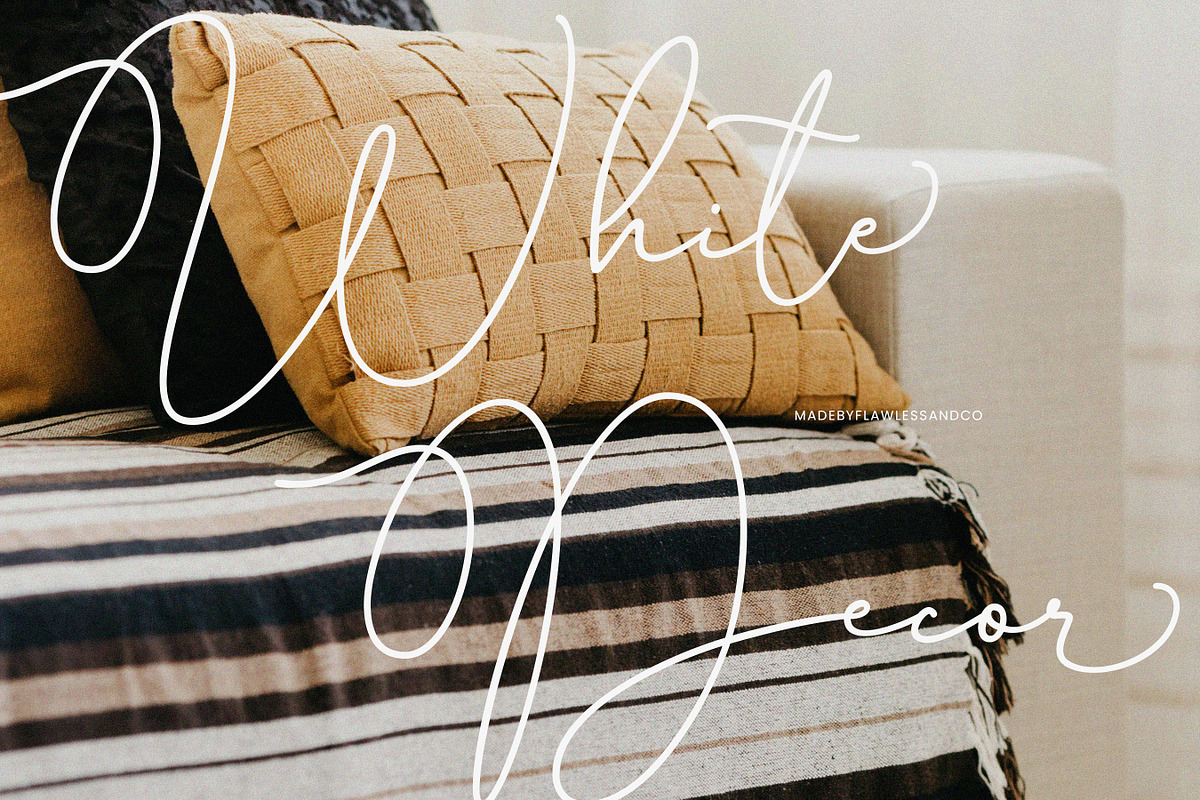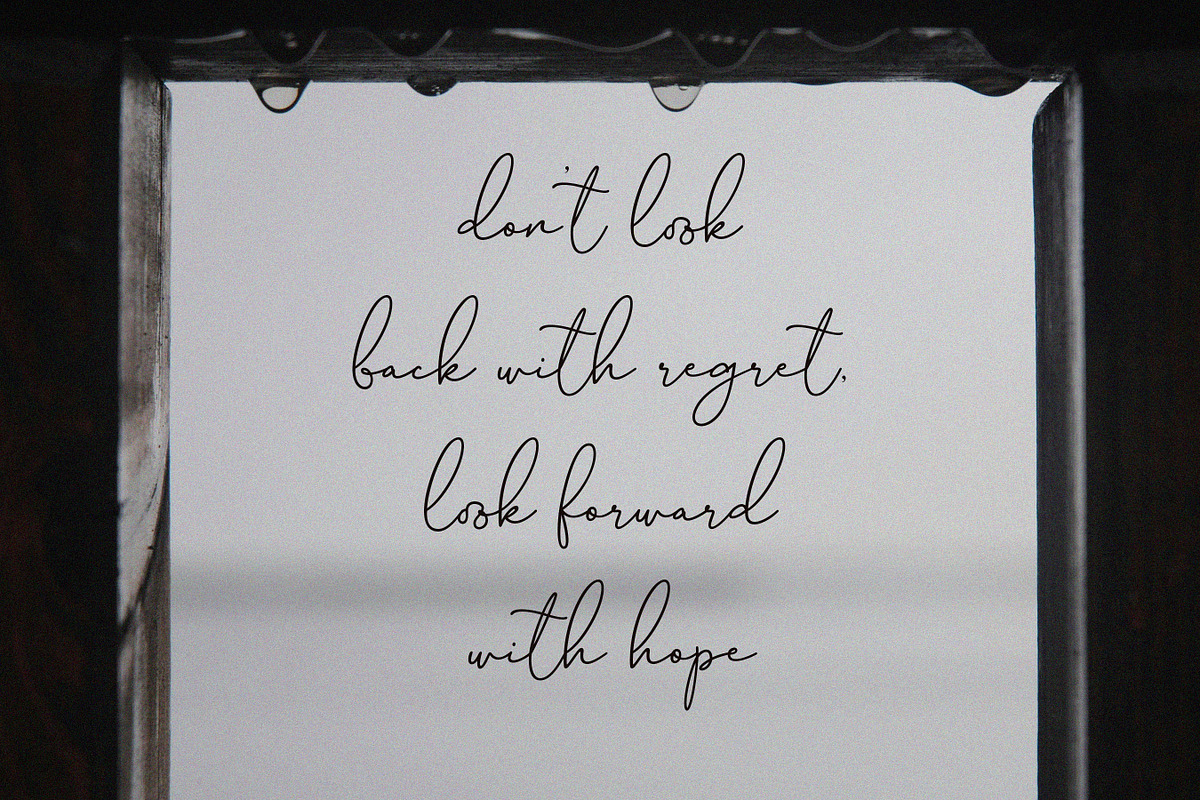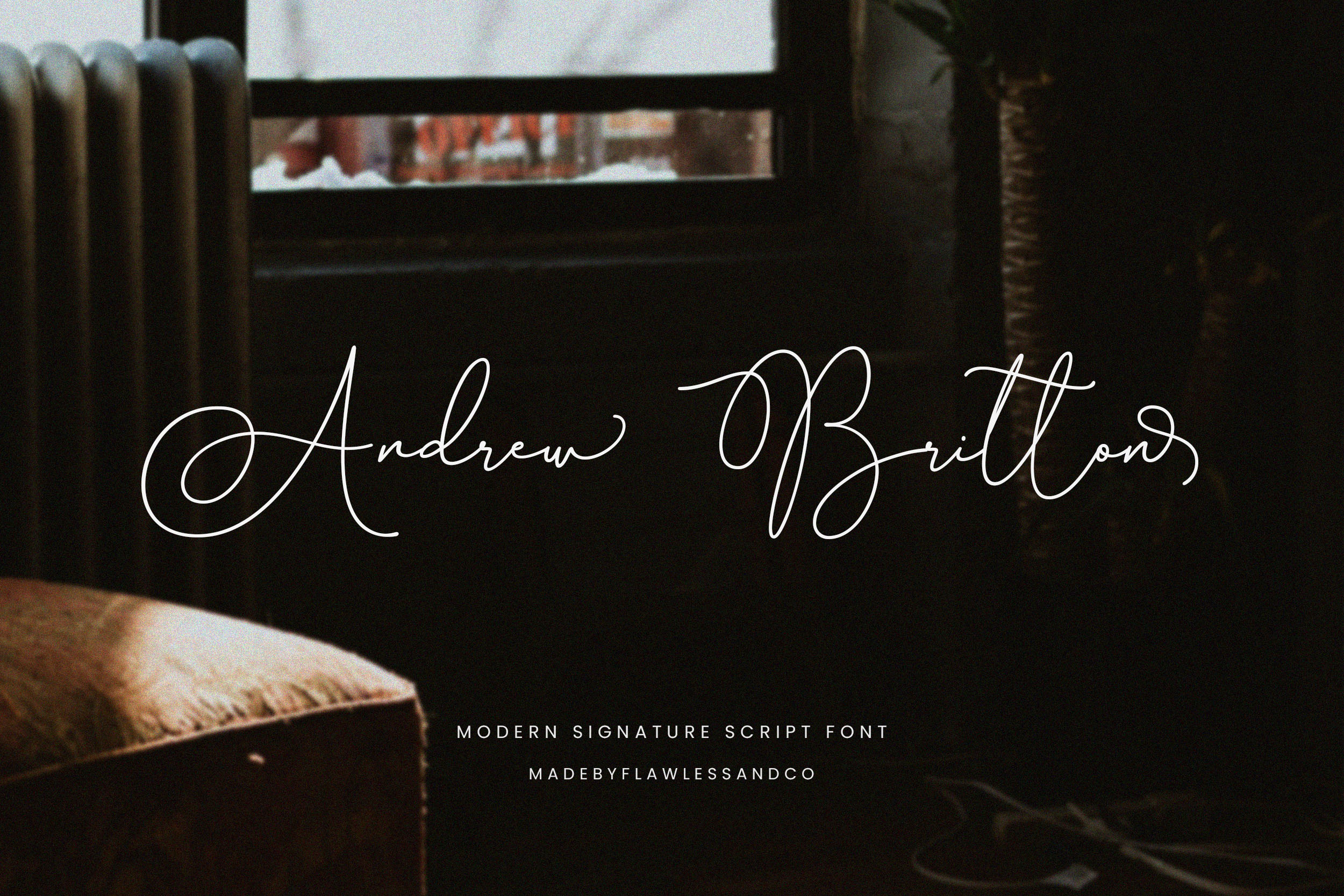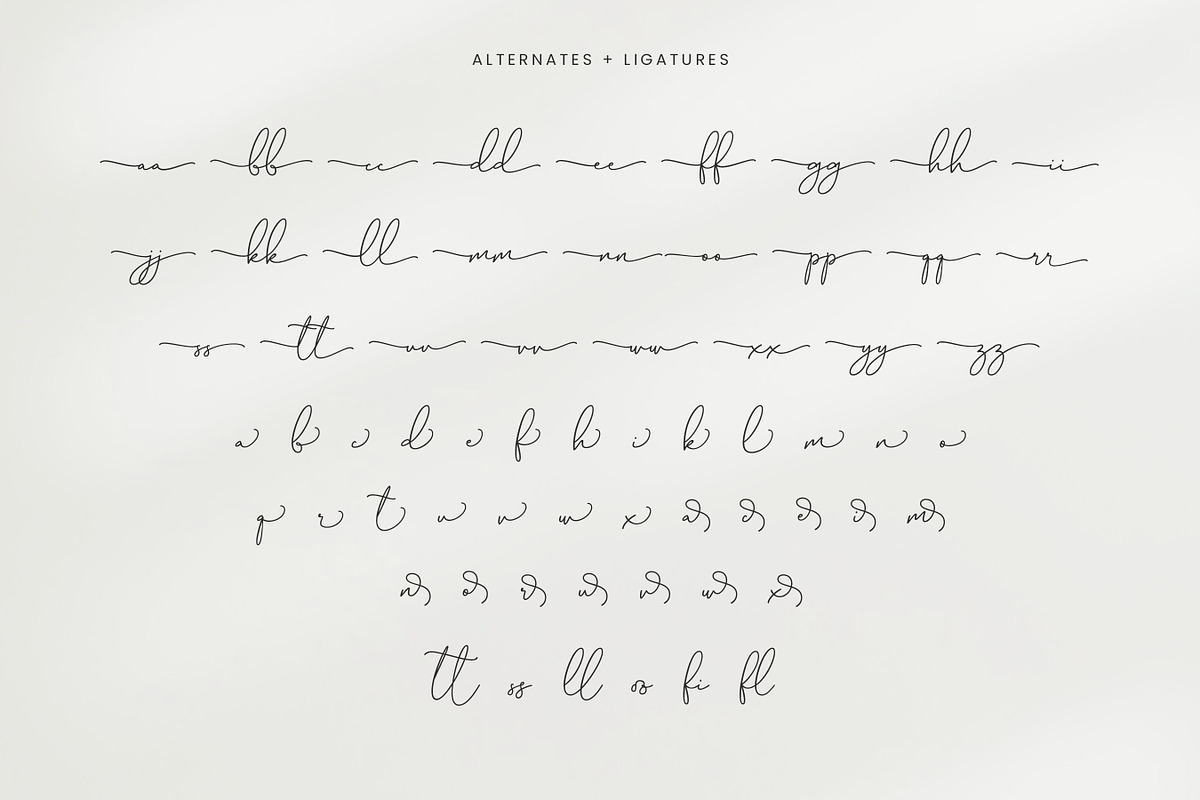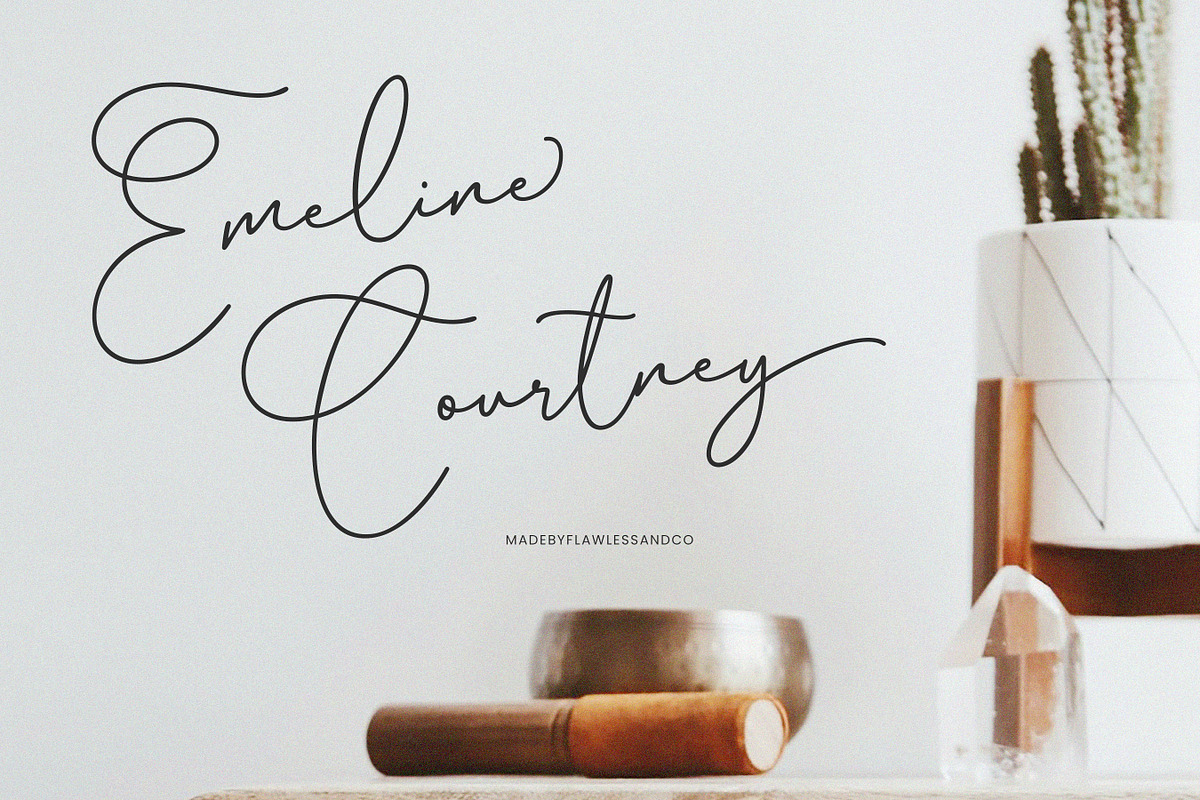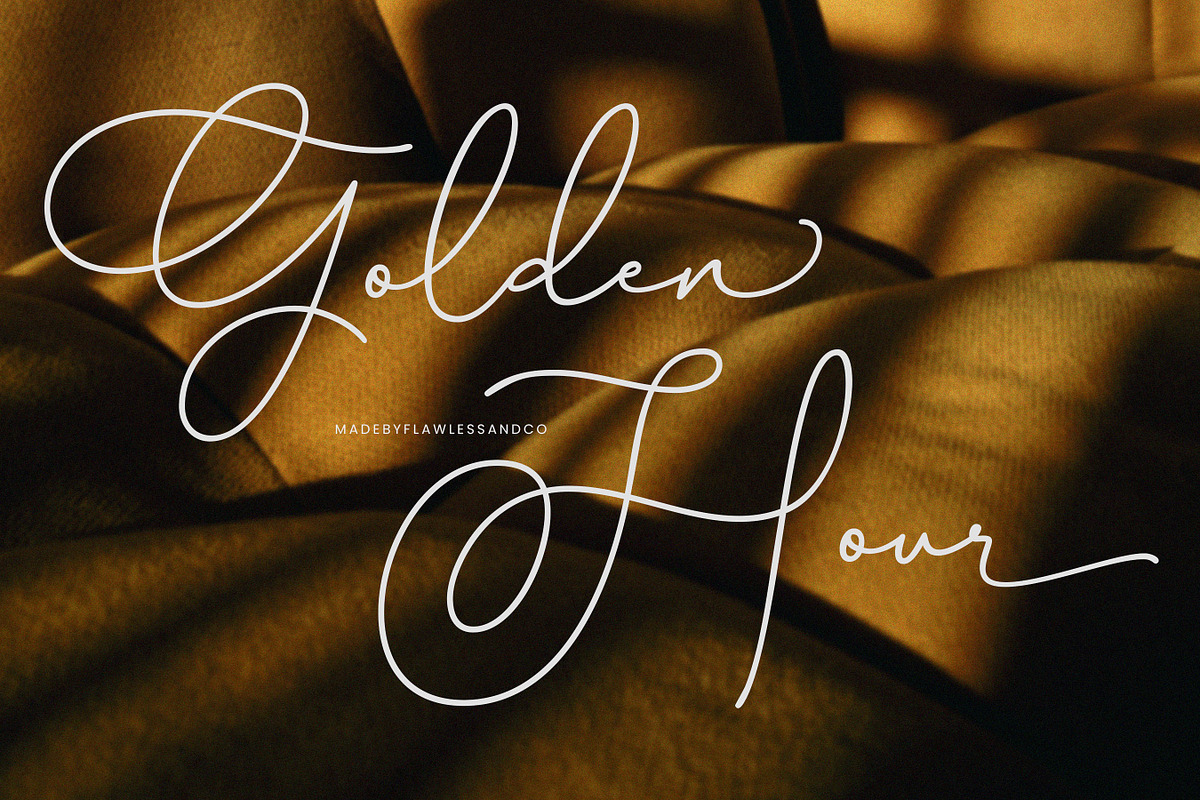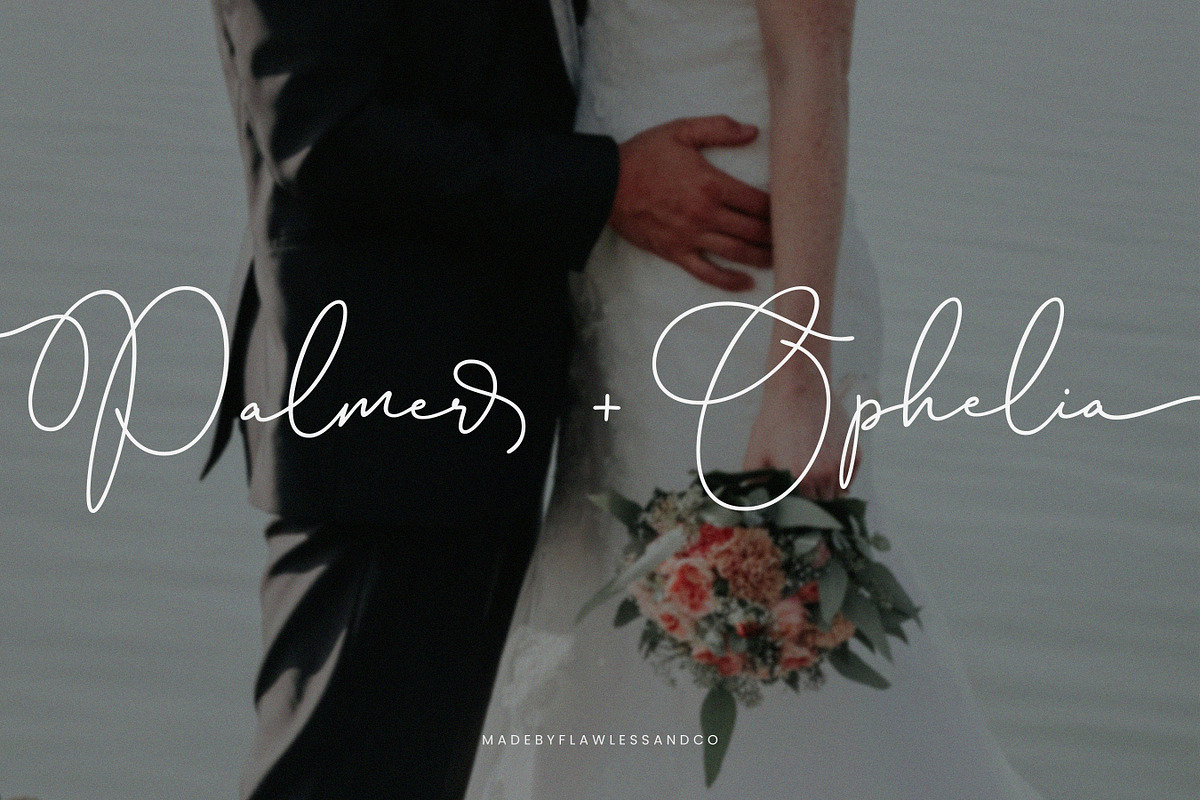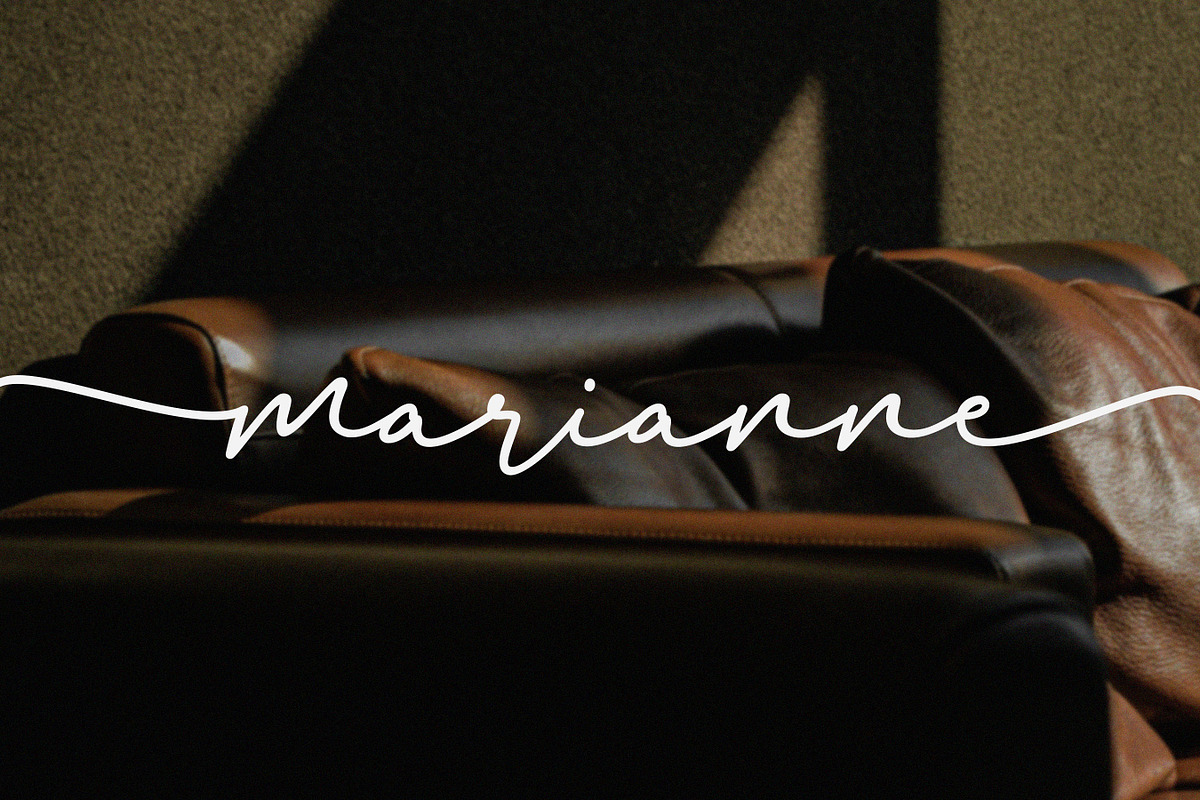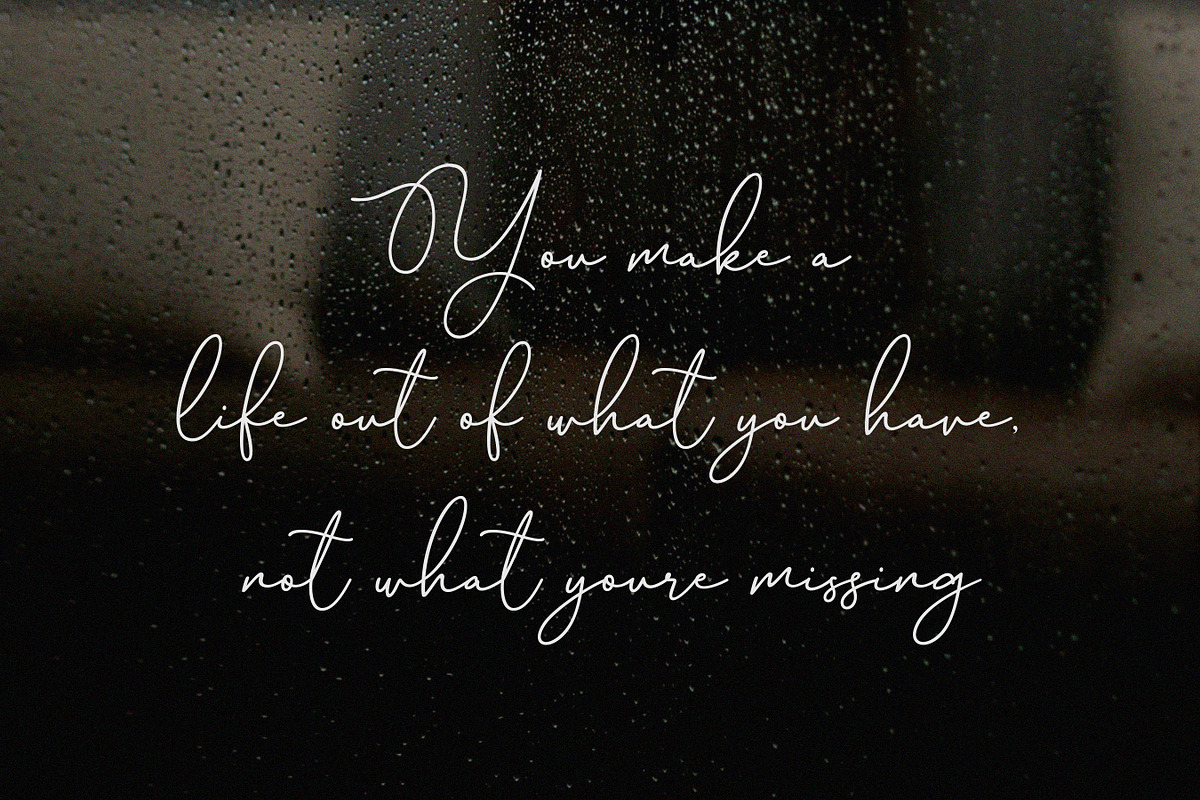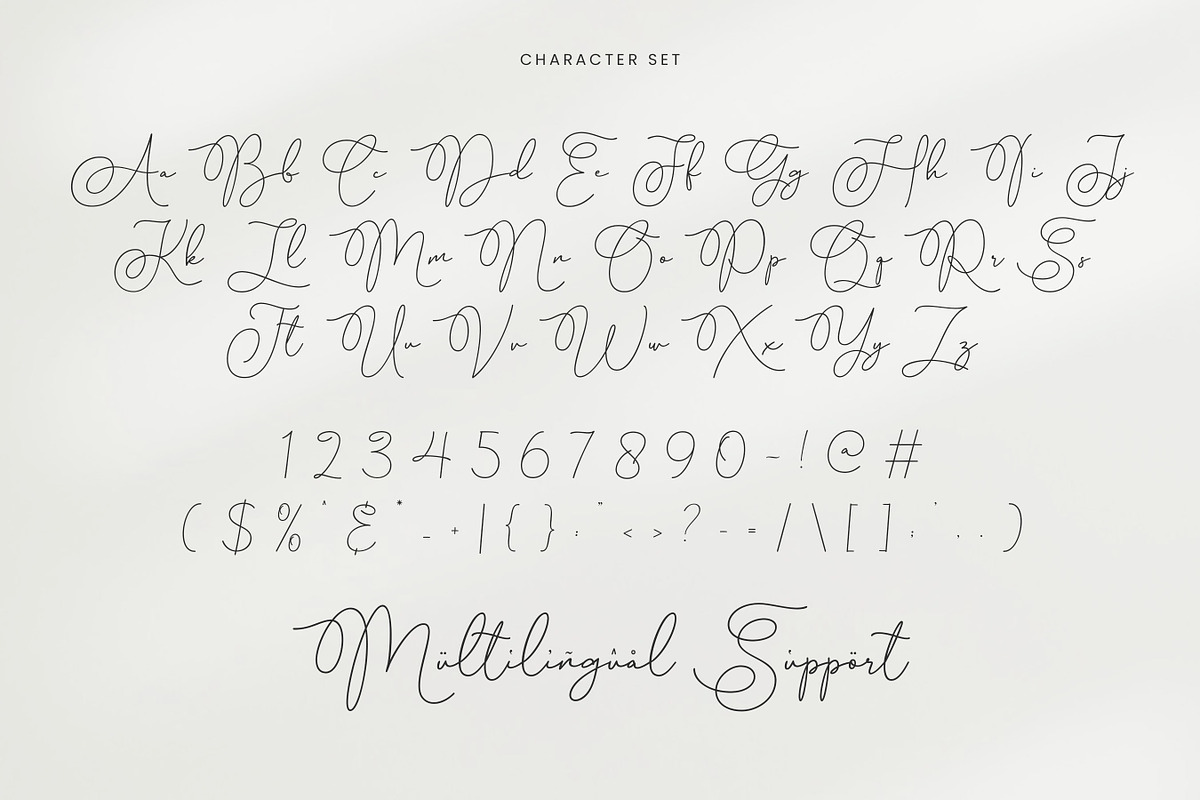
Andrew Britton - Script Wedding Font
Introducing Andrew Britton, a captivating signature script font meticulously crafted to exude elegance and timeless beauty, making it the perfect choice for your wedding invitations, stationery, and other special occasion materials. Inspired by the graceful flow of calligraphy, Andrew Britton adds a touch of sophistication and romance to your wedding designs, capturing the essence of your love story in a way that will leave a lasting impression.
Multilingual Uppercase alphabet A-Z Lowercase alphabet a-z Numbers 0-9 Some punctuation